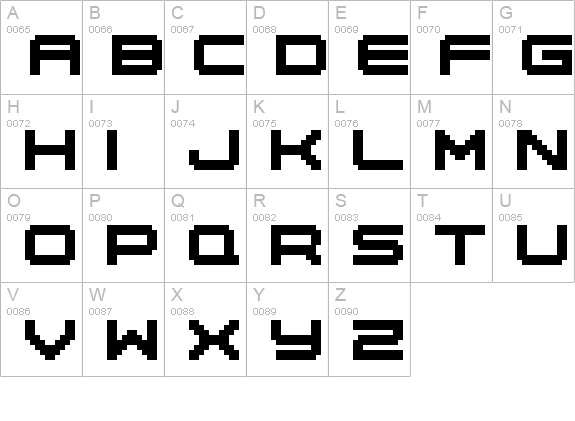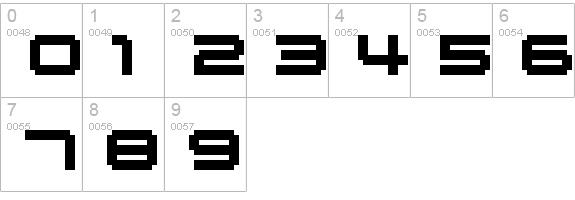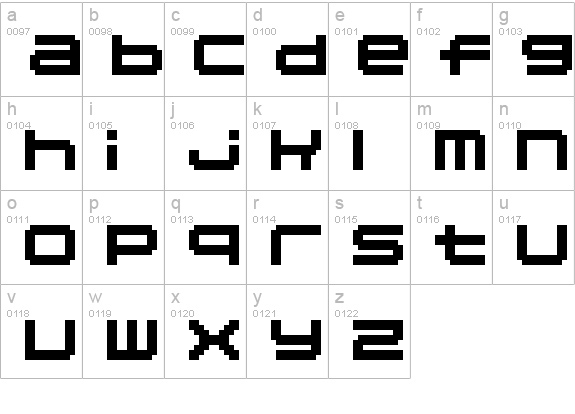
04b20 Font Details
04b20 font is a distinct and retro-inspired typeface that brings a touch of nostalgia to any design project. With its pixelated appearance and clean lines, this font exudes a sense of charm and simplicity. Perfect for adding a vintage flair to posters, websites, and other creative endeavors, 04b20 font is sure to catch the eye and make a lasting impression. Best of all, this font is available for free download at FontsMarket.com. Whether you're a seasoned designer looking to expand your font collection or a beginner seeking unique typography options, 04b20 font is a versatile choice that won't disappoint. Download it today and unleash your creativity with this stylish and timeless typeface.